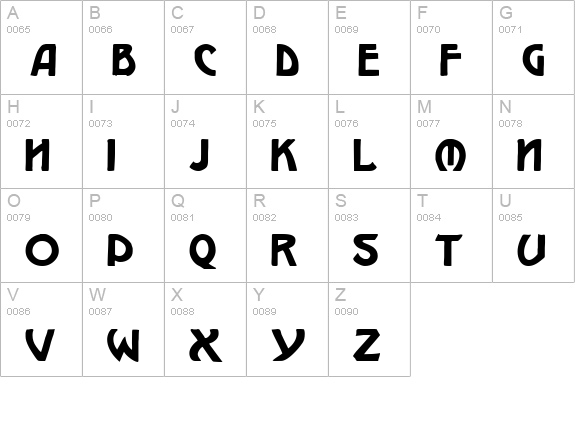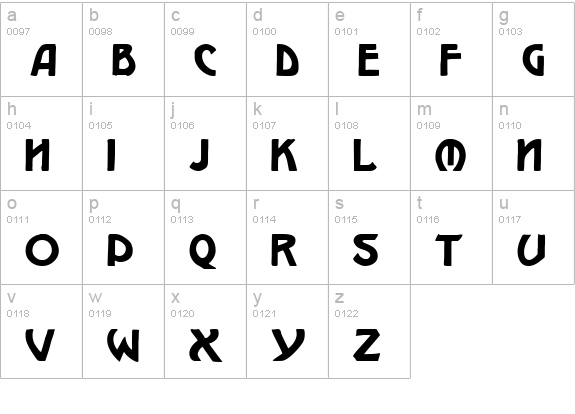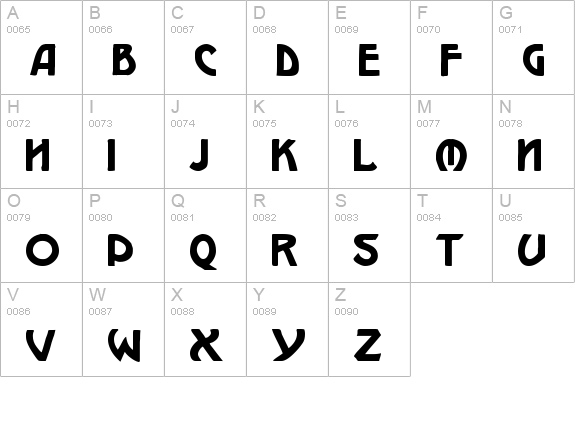
W.J. Pearce 213 Font Details
W.J. Pearce 213 font is a stunning display typeface that exudes elegance and sophistication. With its bold and intricate letterforms, this font is sure to captivate the attention of any reader. Its unique design brings a touch of modernity while still maintaining a classic appeal. This font is perfect for various design projects such as headlines, logos, branding, and invitations. Its versatility allows it to be used in both digital and print media, making it a valuable asset for any designer or creative professional. One of the best features of W.J. Pearce 213 font is that it is freely available to download at FontsMarket.com. This means that anyone can access and utilize this beautiful typeface without any cost. Whether you are a seasoned designer or a beginner, this font provides an opportunity to enhance your work with its distinctive and eye-catching aesthetic. The precise and balanced letterforms of W.J. Pearce 213 font ensure legibility even at smaller sizes, making it suitable for body text as well. Its attention to detail and meticulous craftsmanship make it a reliable choice for any design project, regardless of its scale or complexity. In addition to its aesthetic appeal, this font also offers a wide range of characters and glyphs, allowing for multilingual support. This ensures that your message can be effectively communicated to diverse audiences around the world. With W.J. Pearce 213 font, creativity knows no bounds. Its ability to seamlessly blend contemporary design elements with timeless elegance makes it a must-have for any designer's toolkit. Whether you are designing for print or digital, this font will elevate your projects to new heights, and the fact that it is freely available for download at FontsMarket.com only adds to its allure.